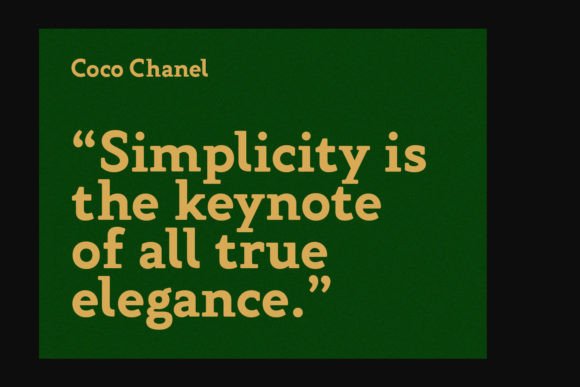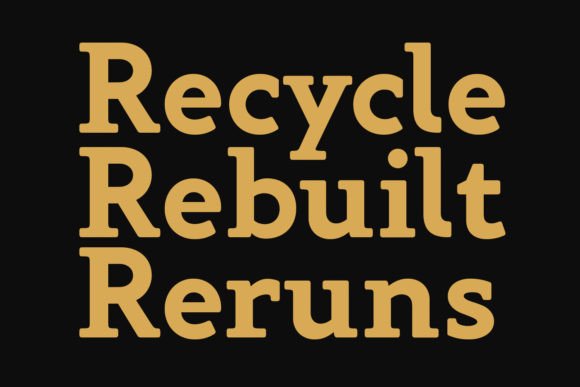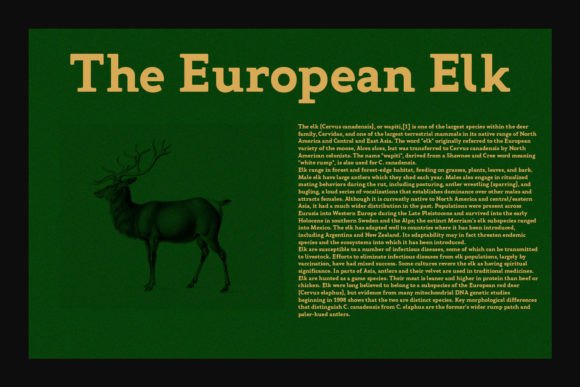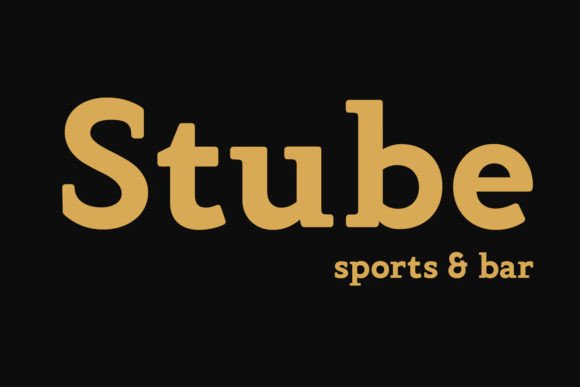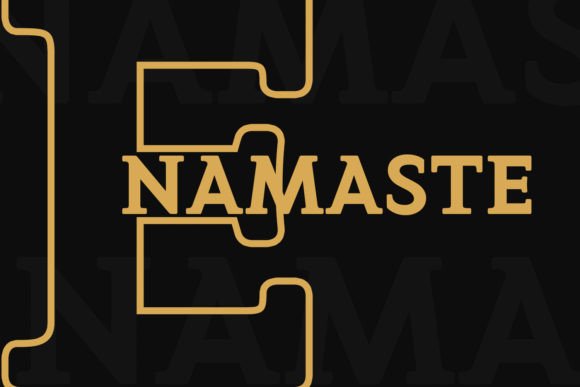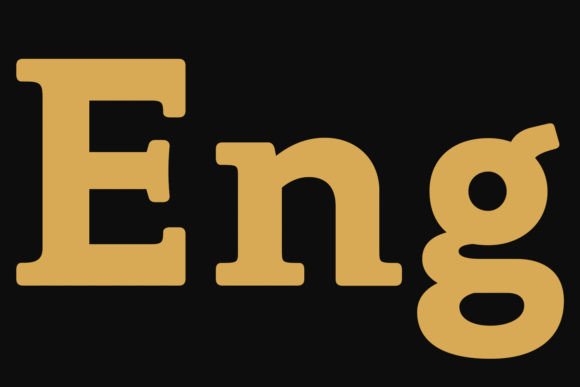
Introduction to Kongra Font
Have you ever found yourself scrolling through design inspiration boards, only to stumble upon a font that perfectly captures the essence of your creative project? For many designers, this moment is a game-changer – it’s the spark that ignites a new idea, a fresh perspective, or a bold statement. For me, that font was Kongra Font, a stunning serif font that exudes sophistication and style.
Kongra Font is more than just a design resource; it’s a versatile tool that can elevate any project from good to great. Its clean lines, minimalist design, and high-quality feel make it an ideal choice for high-end fashion magazines, luxury brand identities, and any creative project that demands a touch of class. Whether you’re working on a design project with a transparent background or need a font that can hold its own against bold graphics, Kongra Font is sure to impress.
What sets Kongra Font apart from other fonts is its ability to add a level of sophistication and elegance to any design. Its free download option makes it accessible to designers of all levels, and its high-quality design ensures that your project will stand out from the crowd.
Kongra Font
- Designed with a unique blend of modern and classic elements
Honest Review: Kongra Font
As a designer, I’m always on the lookout for high-quality design resources to elevate my creative projects. The Kongra Font is one such find that caught my attention. In this review, I’ll share my honest thoughts on this font.
What works well: ✨ The Kongra Font boasts a beautiful, modern design that’s perfect for a variety of creative projects, from logos to typography-based art. Its versatility is a major plus, making it an excellent addition to any designer’s toolkit. The font also comes with a transparent background, allowing for seamless integration with other design elements.
Limitations: ⚠️ While the Kongra Font is an excellent addition to any design resource library, it’s not without its limitations. The font’s lack of a wide character set may be a concern for designers working on international projects. Additionally, the font’s modern design may not be suitable for more traditional or conservative design projects.
Overall, I’m impressed with the Kongra Font’s design quality and versatility. While it may not be perfect for every project, it’s an excellent resource for designers looking for a modern, high-quality font. And the best part? It’s free to download, making it a valuable addition to any design library.
Tips for Getting the Most Out of Kongra Font
To get the most out of Kongra Font, use it in conjunction with other design elements to create a visually appealing and cohesive look. Experiment with different font sizes, colors, and combinations to achieve the desired effect.
Kongra Font is commonly used in:
- Print and digital advertising
- Infographic and data visualization design